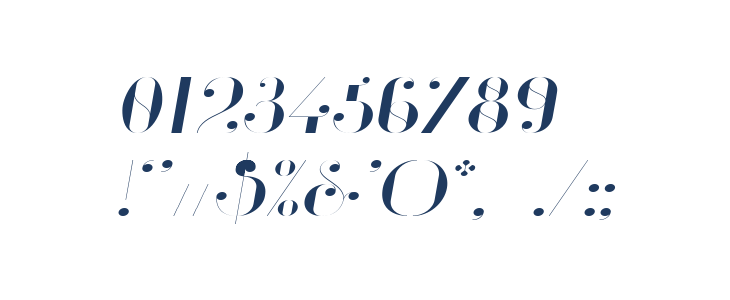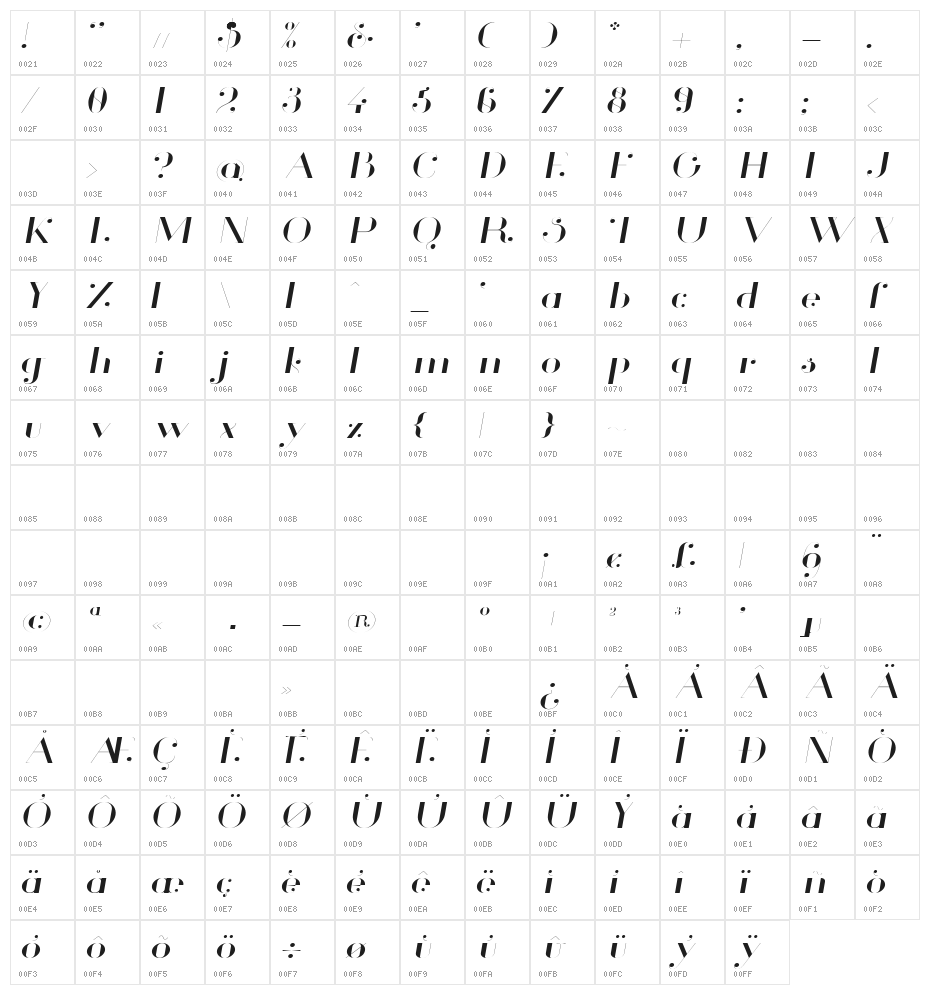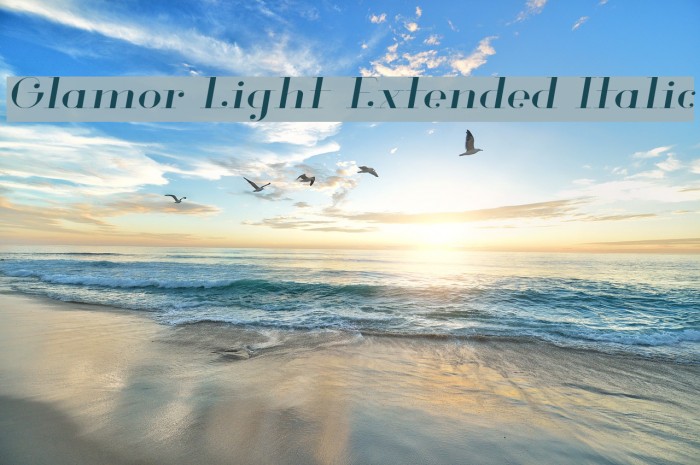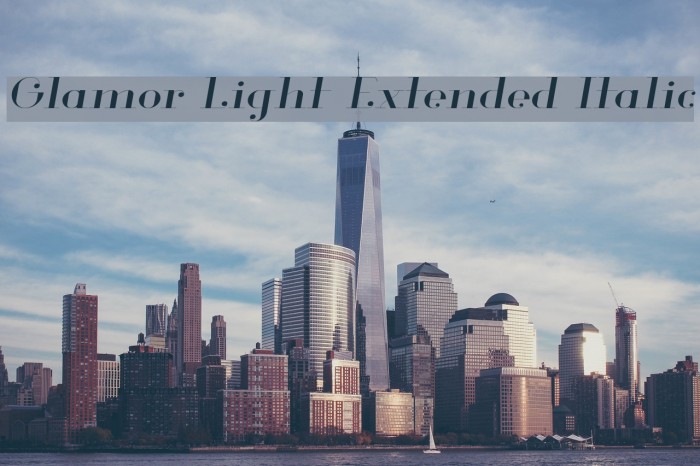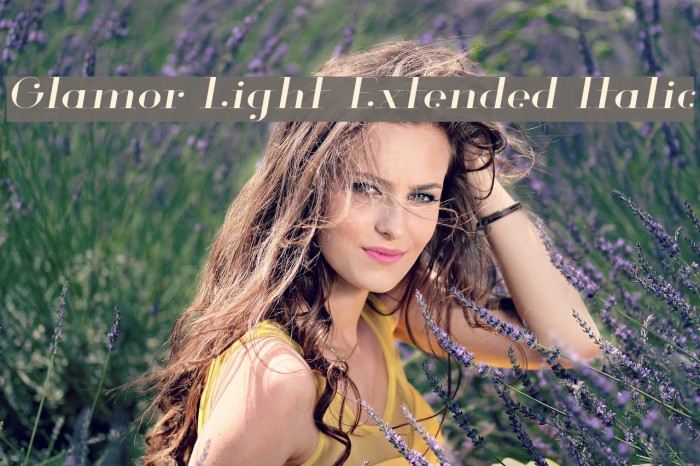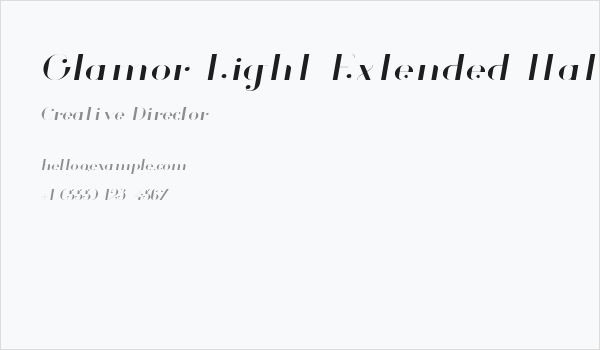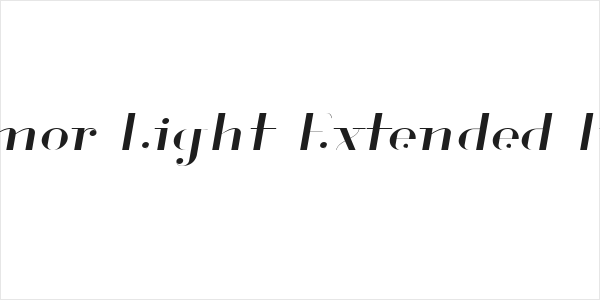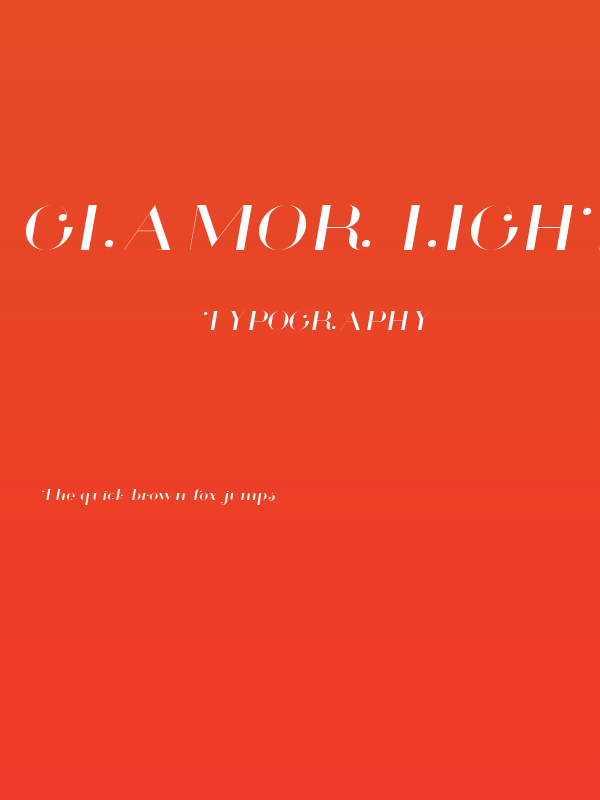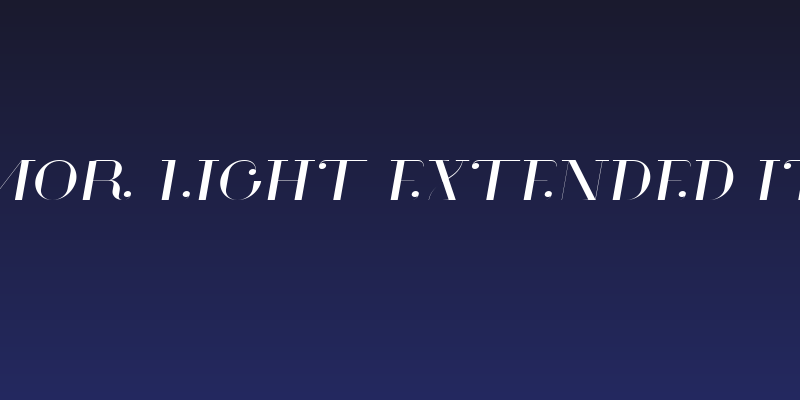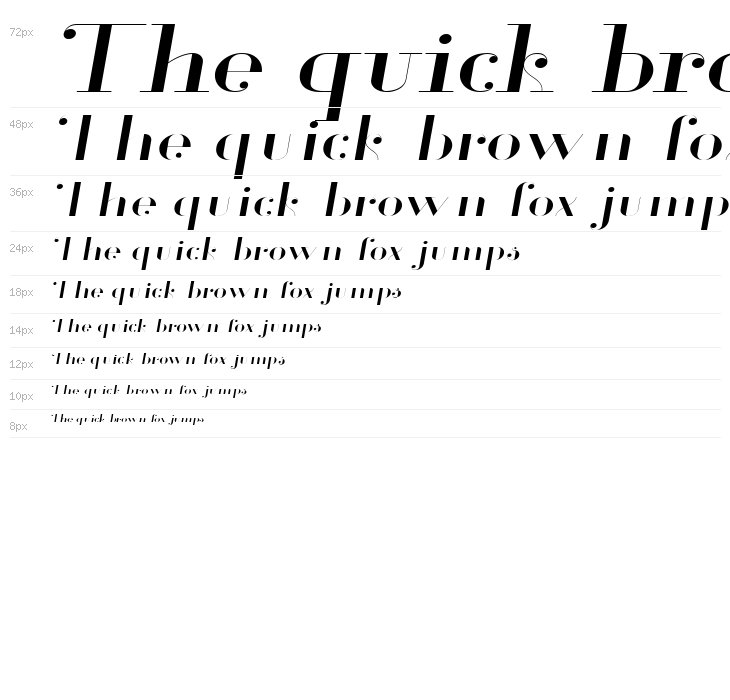
Glamor Light Extended Italic Font
Glamor Light Extended Italic Description
This elegant font features a sophisticated blend of thin and thick strokes, creating a high contrast that adds a touch of luxury and refinement. The italicized style gives it a dynamic and flowing appearance, while the extended width provides a sense of openness and grandeur. The characters are meticulously crafted with a modern twist on classic serif elements, making it suitable for high-end branding and editorial design. The font's unique characteristics, such as its elongated serifs and delicate curves, make it stand out in any design project.